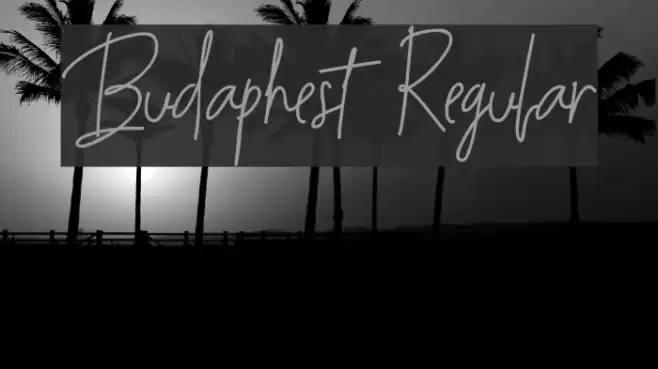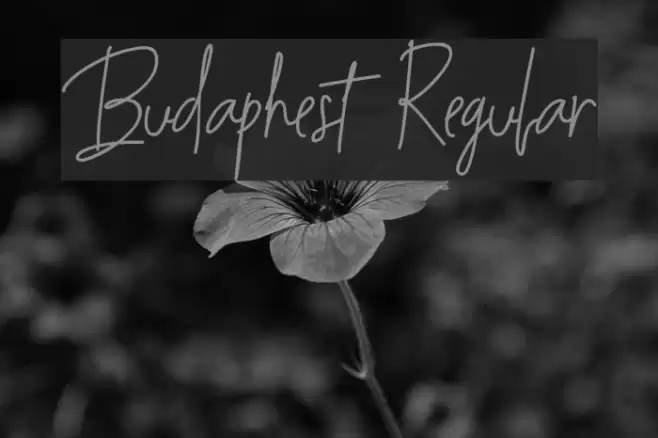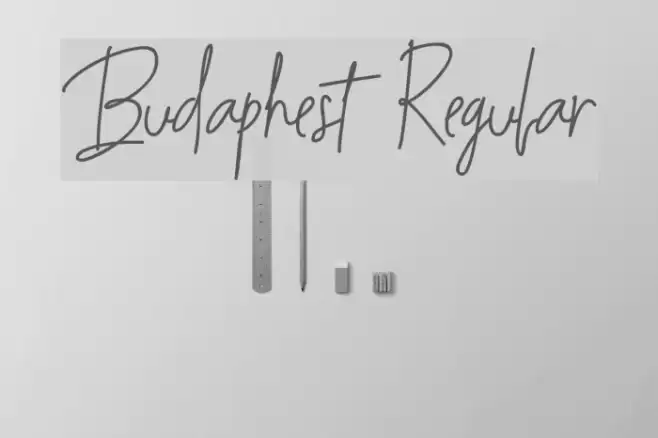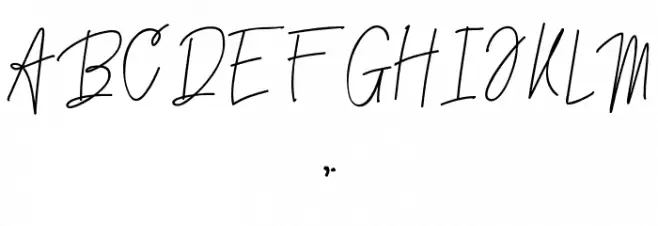
Budaphest Regular Font
Budaphest Regular Description
This font features a lively and expressive handwritten style, characterized by its fluid, cursive strokes and playful loops. The uppercase letters are tall and slender, with a slight slant that adds a dynamic feel. The lowercase letters maintain a consistent flow, enhancing the font's natural handwriting appearance. The overall design is both elegant and casual, making it suitable for a variety of creative applications. The numerals and special characters are crafted with the same attention to detail, ensuring a cohesive look across all text elements.
A lively handwritten font with fluid, cursive strokes and playful loops from Uncategorized fonts.
- Font: Budaphest Regular
- Proposed Projects: Ideal for wedding invitations, greeting cards, personal branding, and artistic projects.
- Use Case: Logos, Headlines, Artistic projects